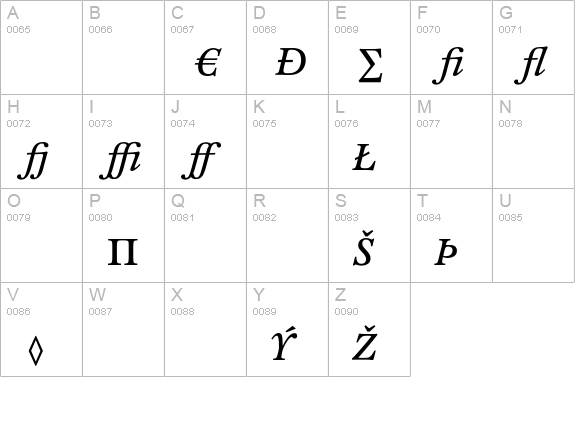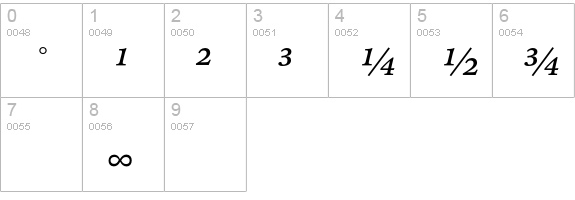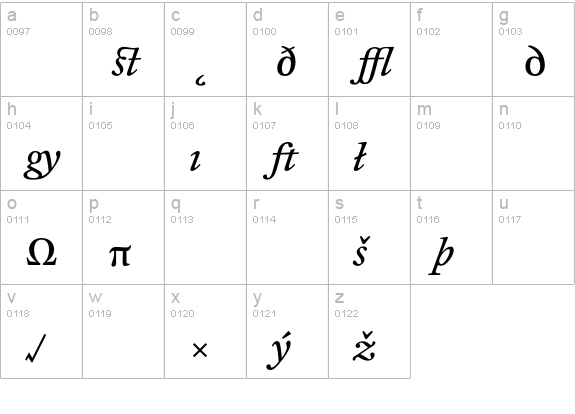
Introducing CliffordSix-ItalicExpert font, a stylish and versatile typeface that exudes elegance and sophistication. With its sleek italic design and expertly crafted letterforms, CliffordSix-ItalicExpert is the perfect choice for adding a touch of class to your projects. Not only does this font offer a unique and modern look, but it also provides excellent readability and legibility, making it suitable for a wide range of design applications. Whether you're working on branding, editorial design, or any other creative project, CliffordSix-ItalicExpert will help your text stand out and make a lasting impression. The best part? CliffordSix-ItalicExpert font is available for free download at FontsMarket.com. Don't miss out on this opportunity to enhance your designs with this exceptional typeface. Download CliffordSix-ItalicExpert today and elevate your typography game to the next level.